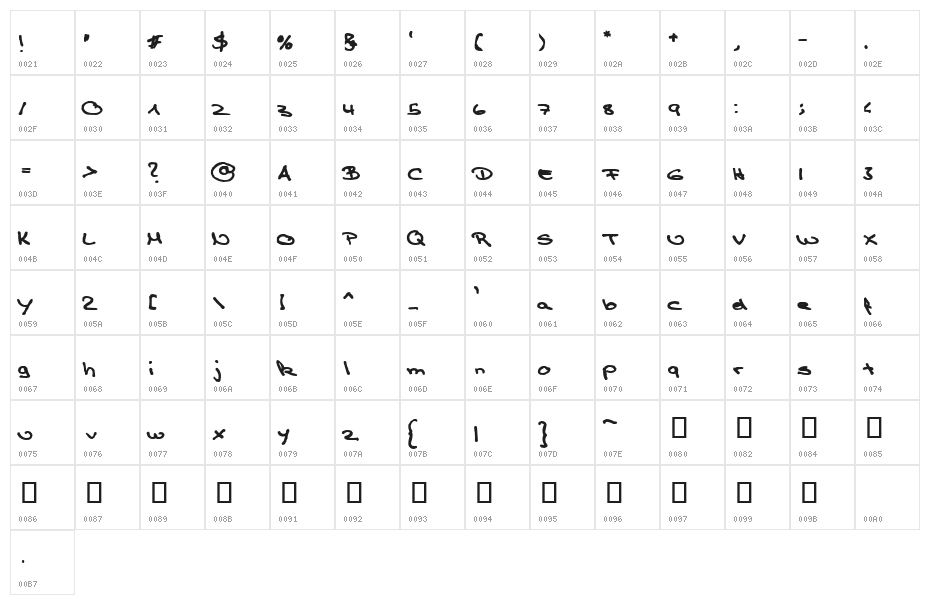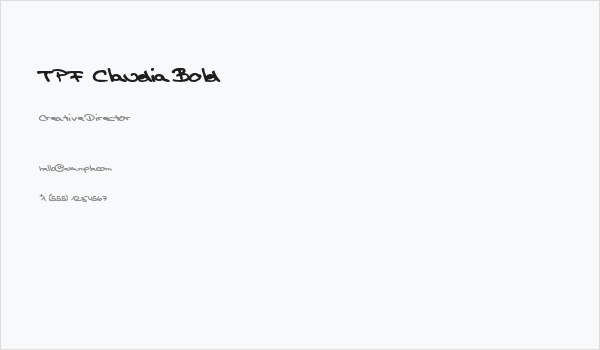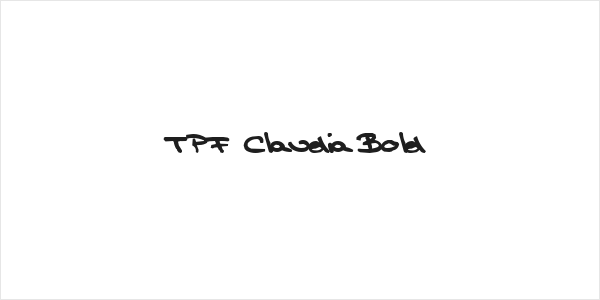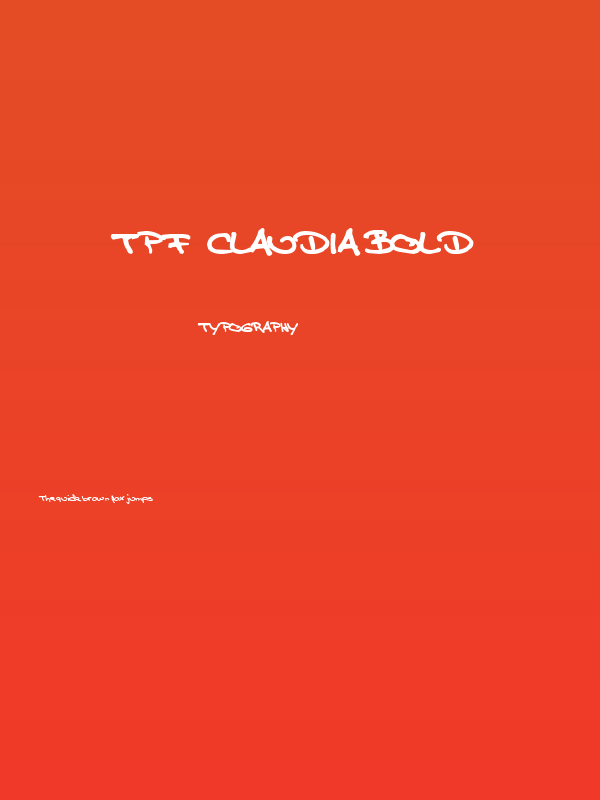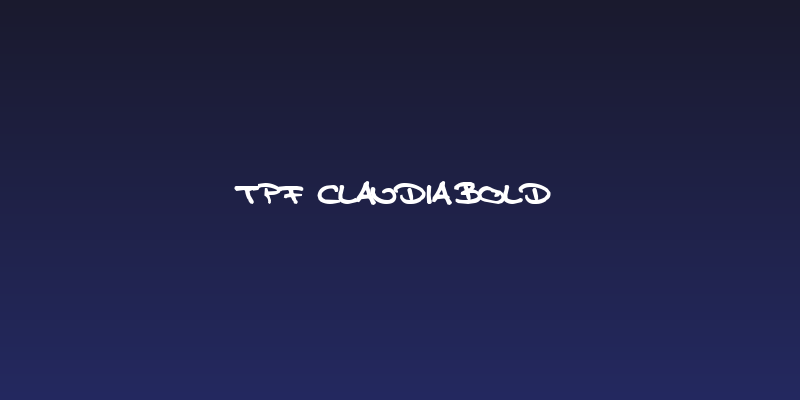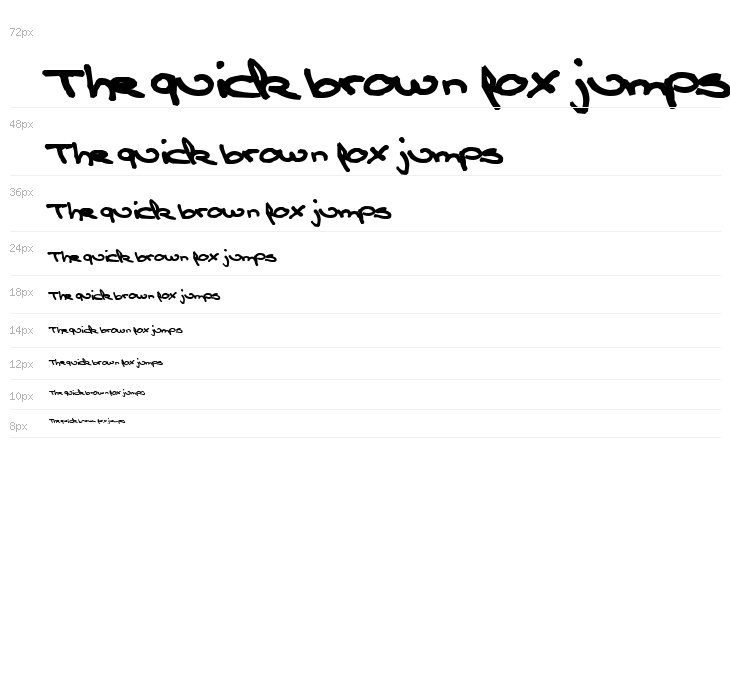
TPF Claudia Bold Font
TPF Claudia Bold Description
This font exhibits a bold, handwritten style with a playful and dynamic appearance. The characters are crafted with a casual flair, featuring irregular strokes that give it a lively and energetic feel. The uppercase and lowercase letters maintain a consistent flow, while the numbers and special characters complement the overall aesthetic. The strokes are thick and rounded, contributing to its bold presence. This font is ideal for projects that require a personal touch or an informal vibe, such as greeting cards, posters, or creative branding.
Use CaseLogos, Headlines, Informal Text
Proposed ProjectsIdeal for greeting cards, posters, creative branding, and informal designs.